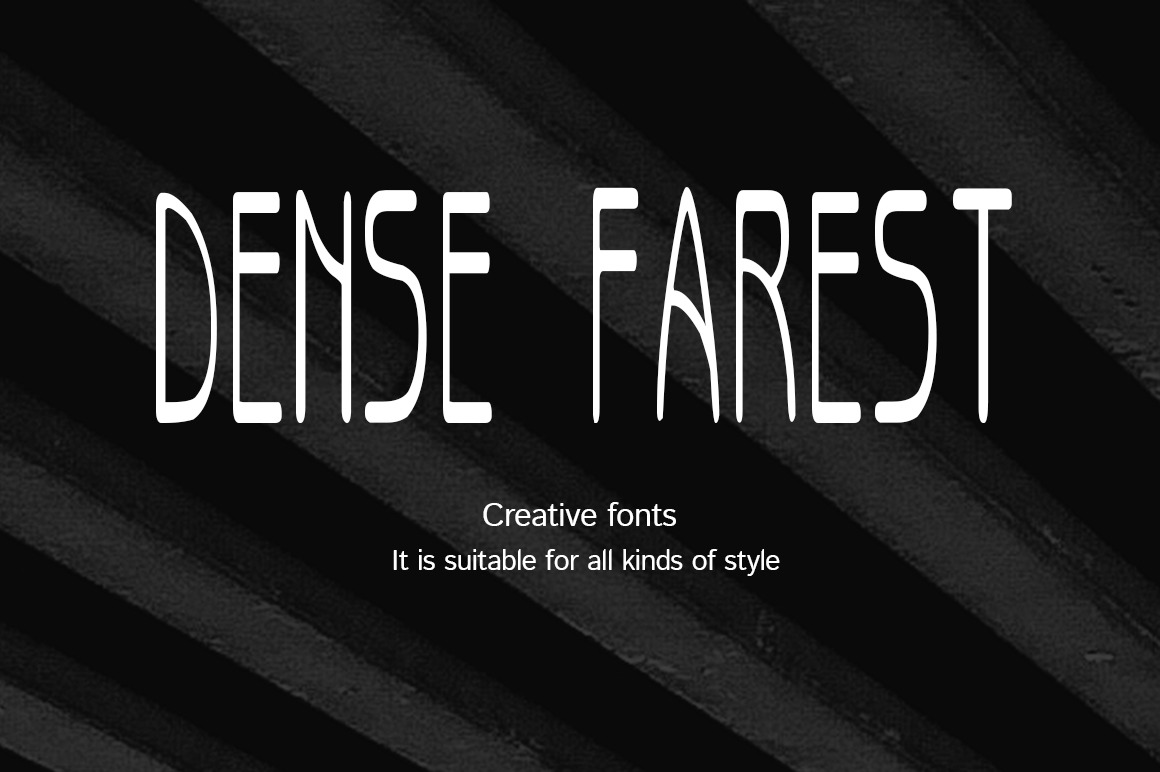
Dense forest-Creative font
This is a creative font. It is suitable for all kinds of style, suitable for: Web design, Graphic design, Posters, Concert, books, Goods, Gift packaging, stationery, Magazine, etc. It is very cool, It is suitable for making the logo.